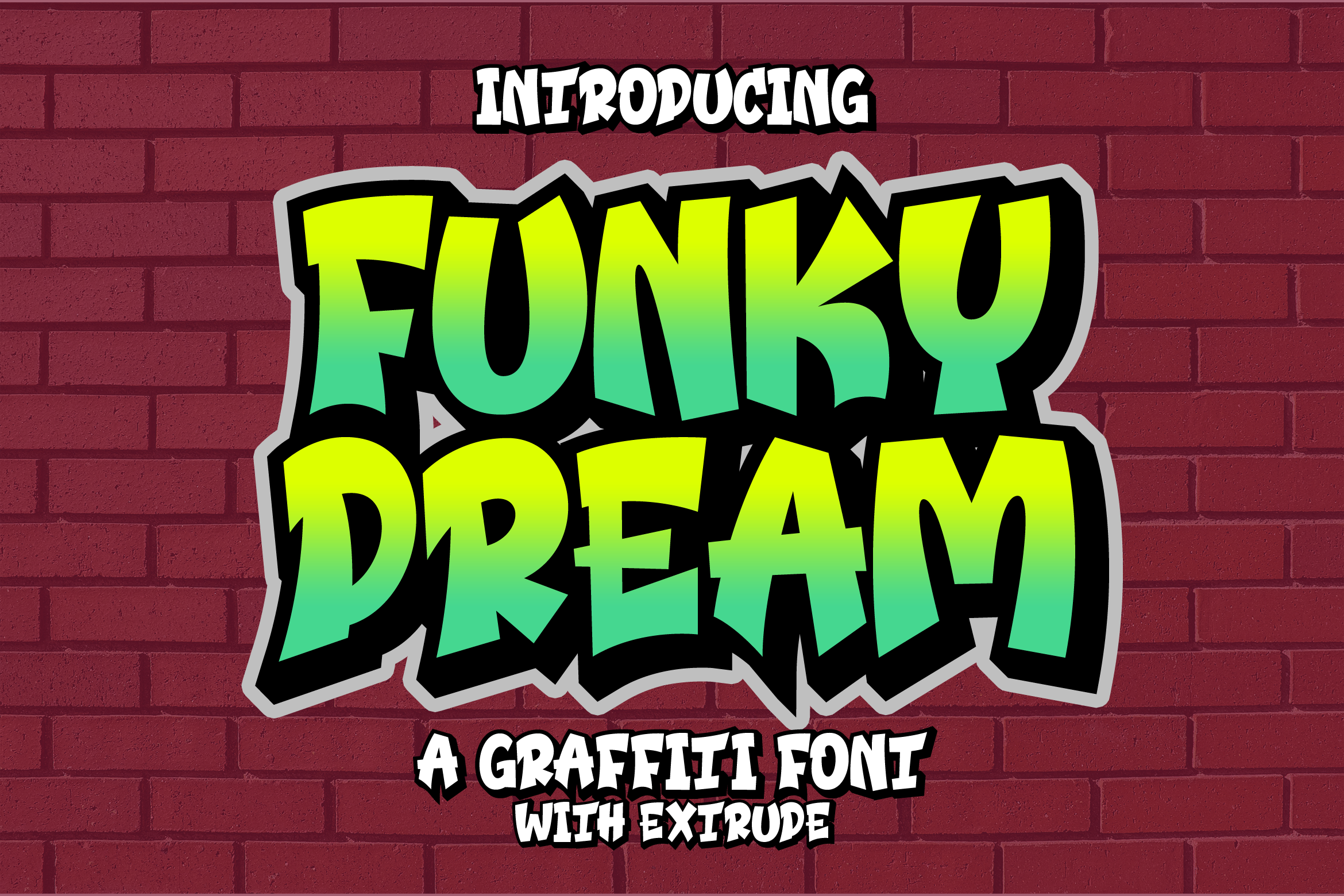
Funky Dream - Graffiti Style Display Font
About Funky Dream - Graffiti Style Display
Funky Dream is a cool, graffiti-style display font. Add this font to your urban and casual creations, and you will love the outcome. Whatever the topic, this font will be a wonderful asset to your font library, as it has the potential to enhance any creation. This font is suitable for designs such as t-shirts, sportswear, logos, advertisements, clothing, and more.